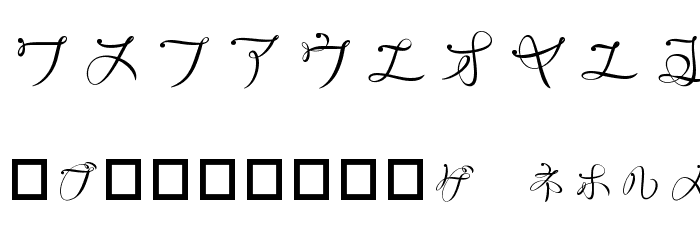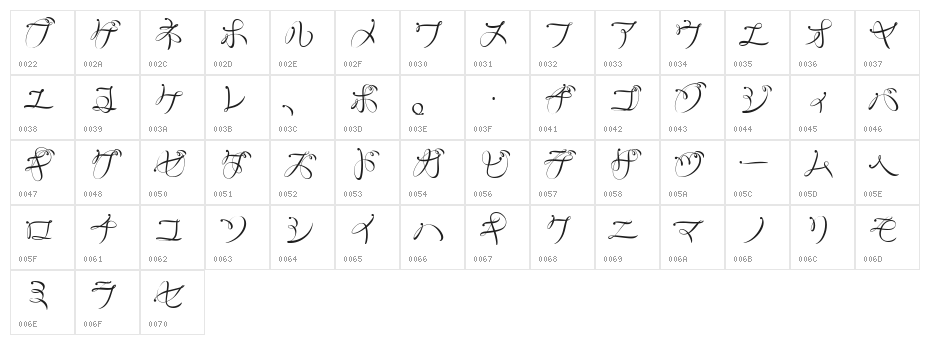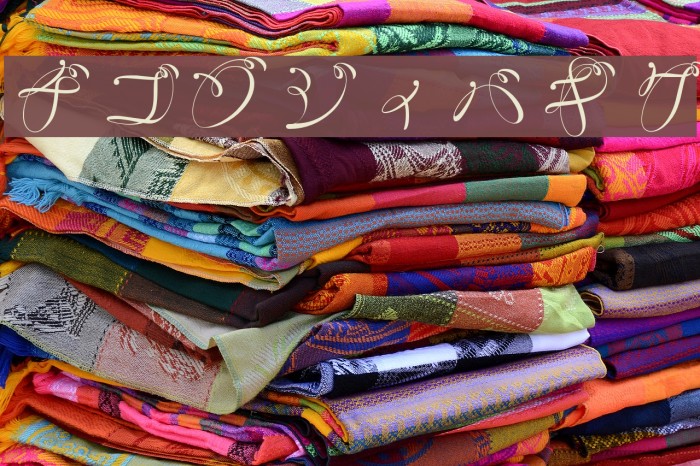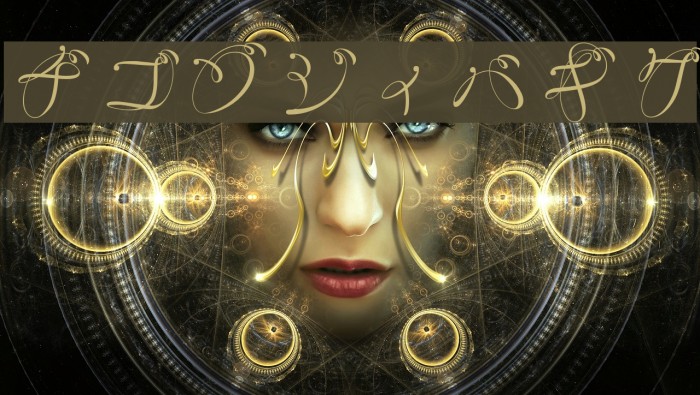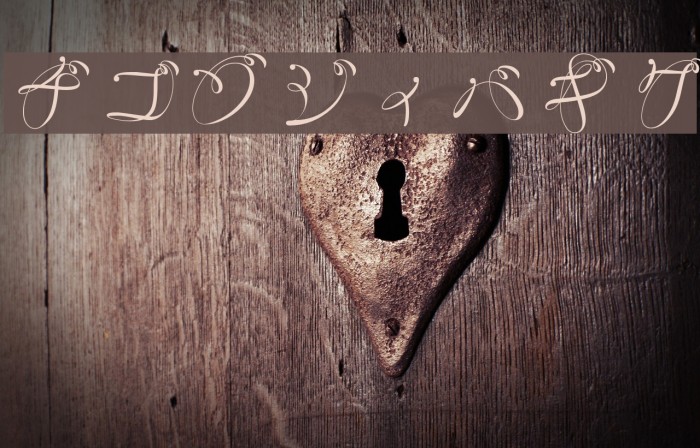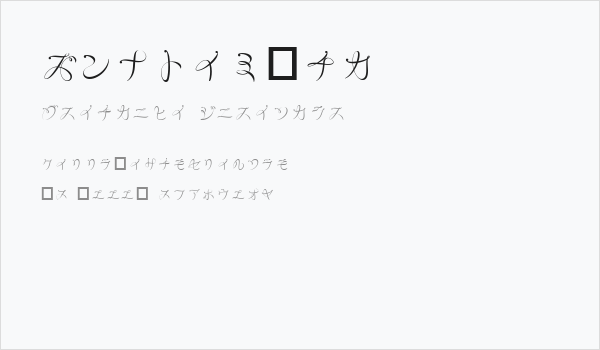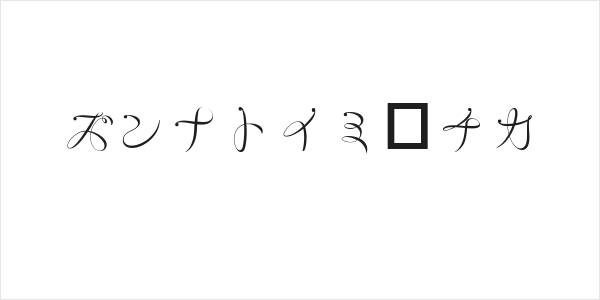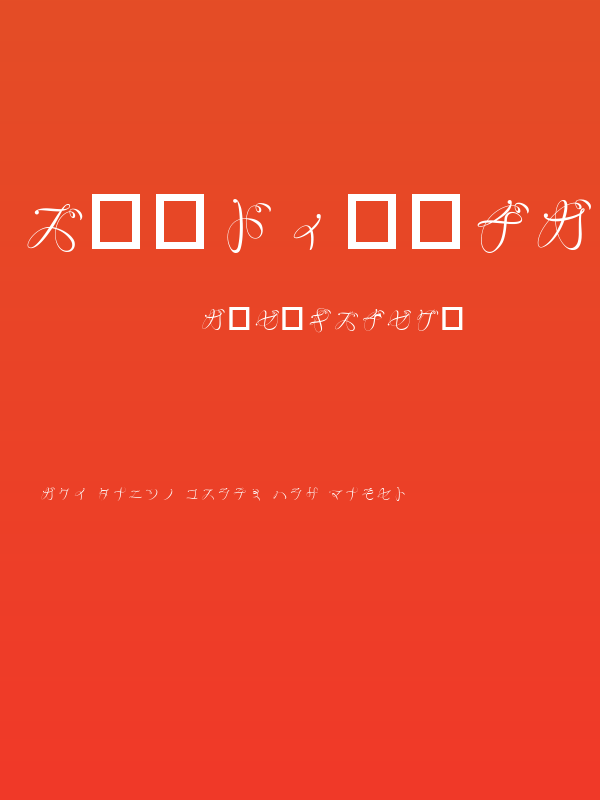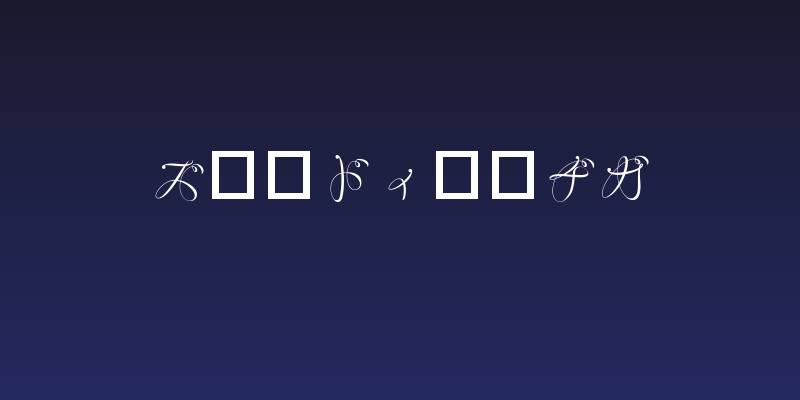
RyusenKat Description
This font features an elegant and intricate script style, characterized by its flowing, interconnected letters and delicate loops. The strokes are thin and graceful, creating a sense of sophistication and fluidity. The uppercase letters exhibit a dramatic flair with extended swashes, while the lowercase letters maintain a consistent, cursive form. The overall appearance is both decorative and refined, making it suitable for formal and artistic applications. The font's unique style is reminiscent of calligraphic handwriting, offering a touch of elegance and charm.
| Proposed Projects | Ideal for wedding invitations, elegant branding, artistic posters, and decorative headings. |